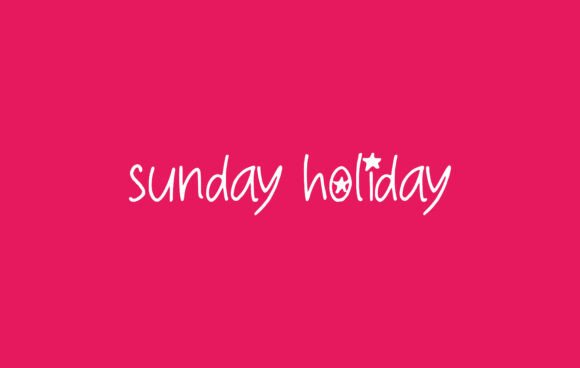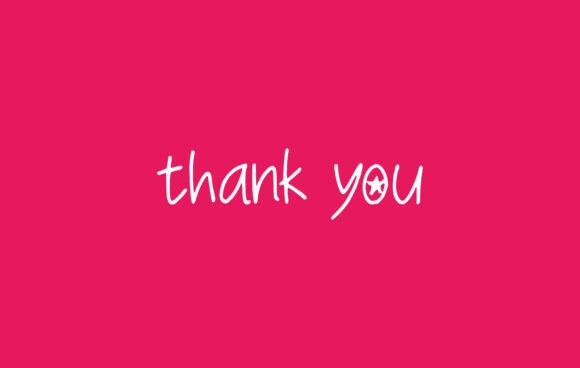
Discover the Enchanting Atlantis Found Font: Elevate Your Designs with a Romantic Touch
Are you on the hunt for a font that adds a dash of romance and sophistication to your creative projects? Look no further than the Atlantis Found font, an authentic handwritten font that has captured the hearts of designers and crafters alike. With its unique blend of elegance and playfulness, this font is poised to become your new favorite, capable of taking your ideas to unprecedented heights.
The Charm of Atlantis Found Font
Atlantis Found font boasts a romantic touch that sets it apart from more traditional fonts. Its authentic handwritten style lends a personal and intimate feel to any design, making it perfect for a wide range of applications. Whether you’re working on magazine headlines, social media graphics, branding materials, wedding invitations, or greeting cards, this font is sure to make your creations stand out.
One of the key advantages of the Atlantis Found font is its versatility. Its legible design makes it suitable for use as both title and body text, allowing you to maintain consistency across your designs while still adding a touch of flair. This flexibility is invaluable for designers and crafters who need a reliable font that can adapt to different contexts and uses.
The possibilities are endless with the Atlantis Found font. Imagine crafting stunning magazine headlines that grab readers’ attention, creating beautiful wedding invitations that set the tone for a romantic celebration, or developing a strong brand identity that resonates with your audience. This font’s romantic and elegant feel makes it an excellent choice for:
- Magazine headlines and articles
- Branding materials, such as logos and packaging
- Wedding invitations and ceremony programs
- Greeting cards and stationery
- And many more creative projects!
Why Choose Atlantis Found Font?
So, what makes the Atlantis Found font a top choice for designers and crafters? Here are just a few reasons:
- Unique Style: Its authentic handwritten design offers a refreshing alternative to more common fonts.
- Legibility: Despite its elegant and cursive nature, the font remains highly legible, making it suitable for both titles and body text.
- Romantic Touch: Adds a touch of romance and sophistication to any design.
- Versatility: Can be used across a wide range of design projects, from digital media to print materials.
Tips for Using Atlantis Found Font
To make the most of the Atlantis Found font, consider the following tips:
- Experiment with Sizes: Play around with different font sizes to find the perfect balance for your design.
- Combine with Other Fonts: Don’t be afraid to pair Atlantis Found with other fonts for added contrast and visual interest.
- Adjust Line Spacing: Tweak the line spacing to ensure your text is easy to read and visually appealing.
The Atlantis Found font is a game-changer for designers and crafters looking to infuse their projects with a romantic and elegant touch. Its unique style, legibility, and versatility make it an excellent choice for a wide range of applications. Whether you’re a seasoned professional or just starting out, this font has the potential to elevate your designs and help you achieve your creative goals. So why wait? Discover the enchanting world of Atlantis Found font today and take your designs to new heights!